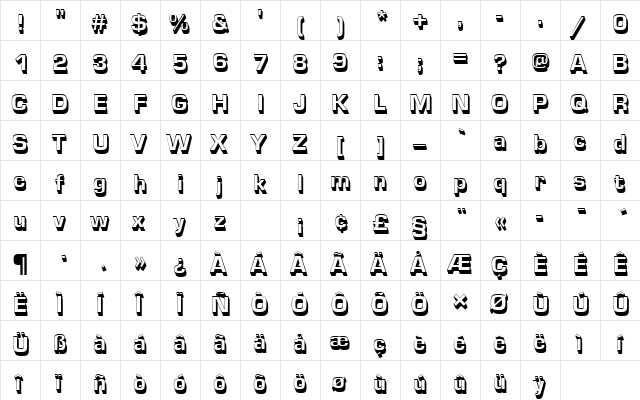
EurostileTHeaSh1 Regular Font Preview
EurostileTHeaSh1 Regular
EurostileTHeaSh1 Regular Font Details
Design Context for EurostileTHeaSh1 Typeface
EurostileTHeaSh1 offers clean, dependable letterforms without strong stylistic allegiance, making it a practical choice for designers who need flexibility.